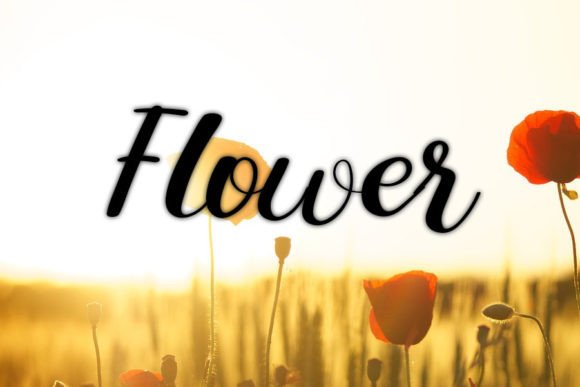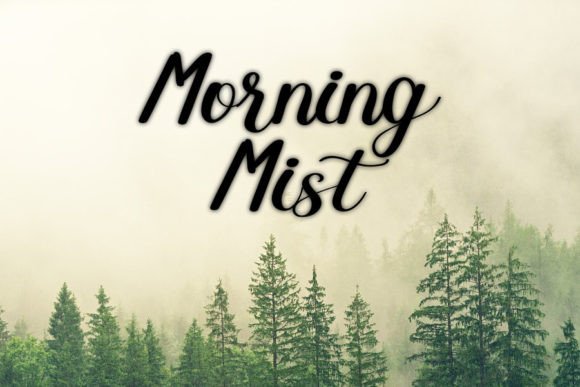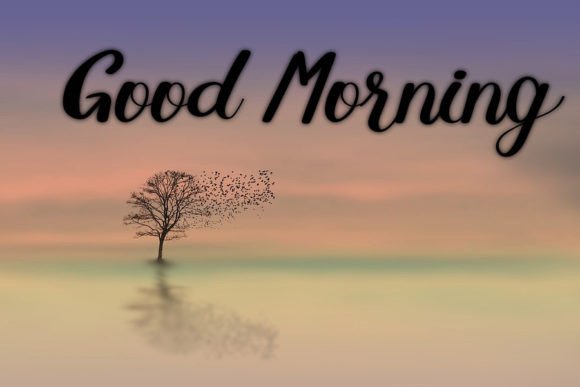
Introduction to Hollo Font
As a designer, there’s nothing quite like the thrill of finding the perfect font for your next creative project. You’ve poured your heart and soul into the concept, and the right typography can make all the difference. I still remember the moment I stumbled upon the Hollo Font – it was love at first sight. The elegant, handwritten style was everything I needed to elevate my design to the next level.
With its high-quality design and free download option, the Hollo Font has become a valuable resource for designers everywhere. Whether you’re creating a logo, branding materials, or a beautiful quote, this font is sure to add a touch of sophistication and personality to your work. Its transparent background allows for seamless integration with any design, making it the perfect choice for your next creative project.
Key Features of Hollo Font
- High-quality, free download font ideal for creative projects and design resources.
- Unique, modern design with a transparent background, allowing for versatile use in different backgrounds and designs.
- Perfect for use in digital design, print materials, and other creative projects requiring a clean and minimalist font.
- Easy to customize and style with its simple, yet effective design, making it a great addition to any design resource.
Honest Review: Hollo Font
As a designer, I’m always on the lookout for high-quality design resources to elevate my creative projects. The Hollo Font has caught my attention, and I’m excited to share my honest review.
- ✨ The font’s modern and minimalist design makes it perfect for a variety of creative projects, from branding to editorial content.
- ✨ The transparent background allows for seamless integration with other design elements, giving you more creative control.
- ⚠️ The Hollo Font may not be suitable for projects that require a lot of bold, attention-grabbing typography.
- ⚠️ The font’s simplicity may make it feel a bit generic for certain design applications.
Overall, I’m impressed with the Hollo Font’s high-quality design and versatility. While it may have some limitations, it’s a valuable resource for designers looking for a clean and modern font for their creative projects.
Tips for Getting the Most Out of Hollo Font
To get the most out of Hollo Font, experiment with different font sizes, colors, and styles to create unique and engaging designs. Use the transparent background feature to create eye-catching graphics and logos.
Hollo Font is commonly used in creative projects such as graphic design, logo creation, and digital art. Its high quality and transparent background make it an ideal choice for designers looking for a versatile and effective design resource.
Is the Hollo Font customizable?
The Hollo Font is designed to be highly customizable. You can adjust the font size, color, and style to suit your needs. Additionally, the font’s transparent background makes it easy to layer over other design elements, allowing for maximum flexibility and creativity in your design project.